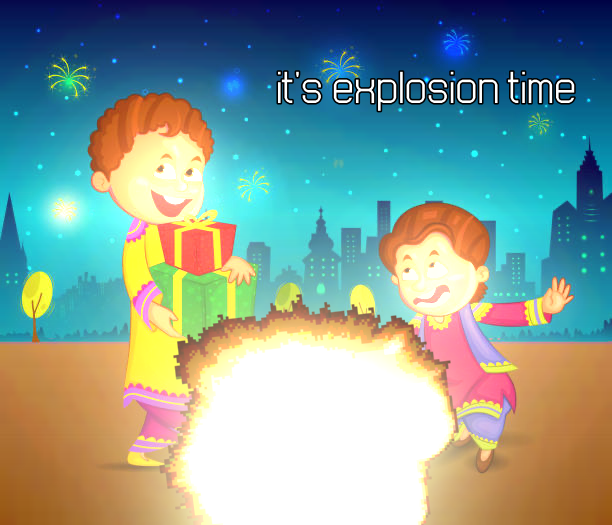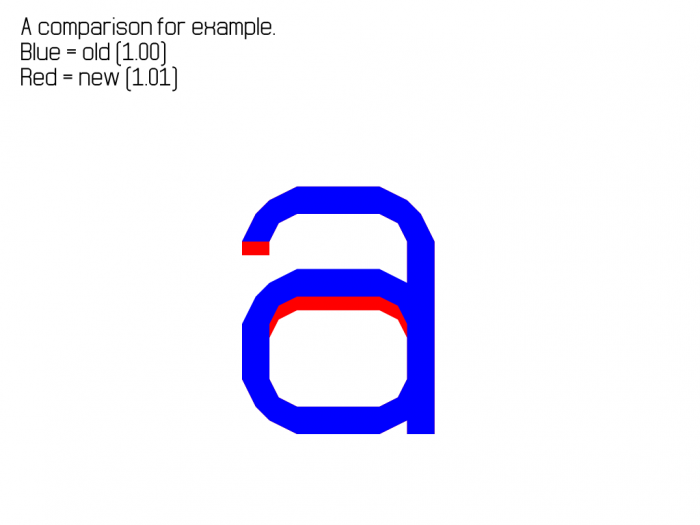
• If only 22.5° angled bricks were in the brick selector, then I (and other FontStructers) could stop making composites to do so...
Also, nudging. That was a pain. And also copying and pasting (I had to do it for the lowercase letters and numbers, but was less repetitive in the uppercase)
This does look nice at double pixel size.
it's explosion time
Minor change to LATIN LOWERCASE A: the top of the hole has been moved down by 0.5 grid spaces. Half a brick has been added to the tip of the hook.
Comparison.